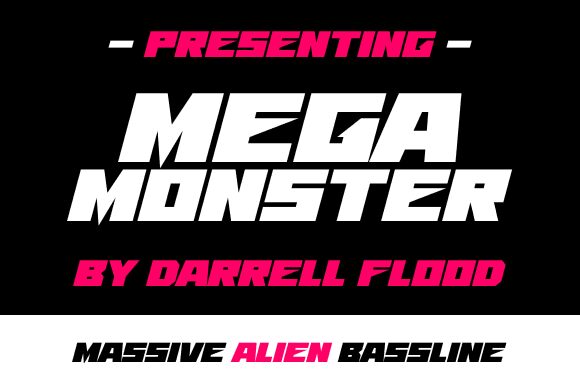
Mega Monster
Mega Monster, a striking display font crafted by Hawtpixel, exudes a bold, futuristic presence. With its expanded, geometric letterforms and commanding weight, this font commands attention, evoking a sense of strength and modernity. The distinct, angular features and sharp edges lend a captivating, avant-garde aesthetic, making Mega Monster an impactful choice for dynamic branding, signage, and eye-catching headers.
Mega Monster's versatile nature allows it to shine across a diverse range of design applications. Its expansive, attention-grabbing style makes it an excellent selection for titling, logos, and poster designs, where it can effortlessly convey a sense of power and innovation. Furthermore, the font's bold character ensures it maintains legibility and visual impact, even at large sizes, making it a compelling choice for environmental graphics and large-scale installations.